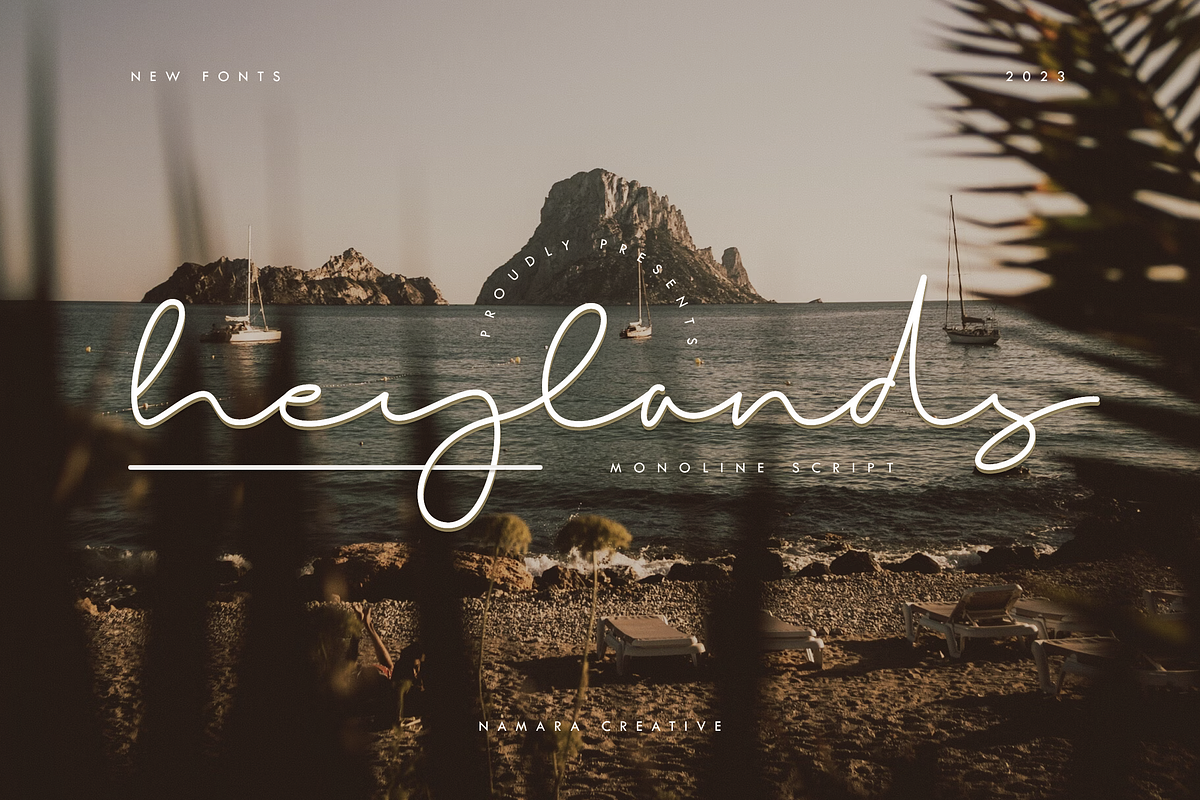
Heylands – Monoline Script Font Free Download is a sleek and stylish handwritten typeface with a clean, continuous stroke. Designed with simplicity and elegance in mind, this font is perfect for logos, personal branding, social media content, modern invitations, and minimalist packaging.
Its monoline style gives a contemporary feel, while the cursive flow adds a sense of approachability and charm. Whether you're designing for fashion, photography, or lifestyle projects, Heylands delivers a polished and authentic handwritten look.